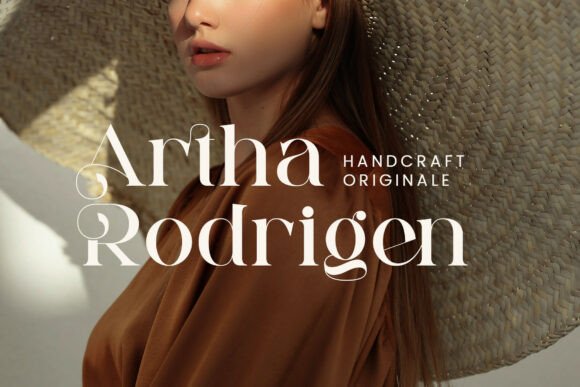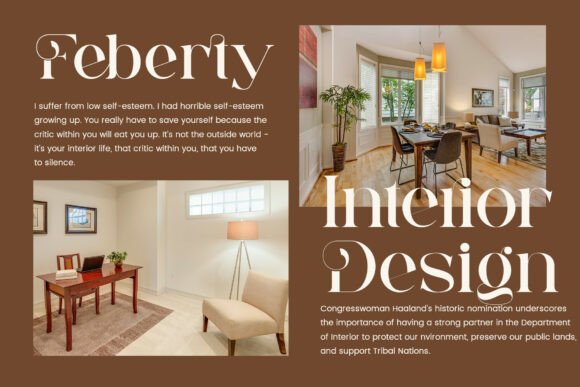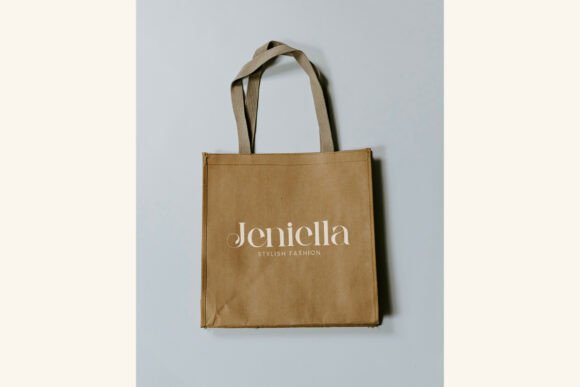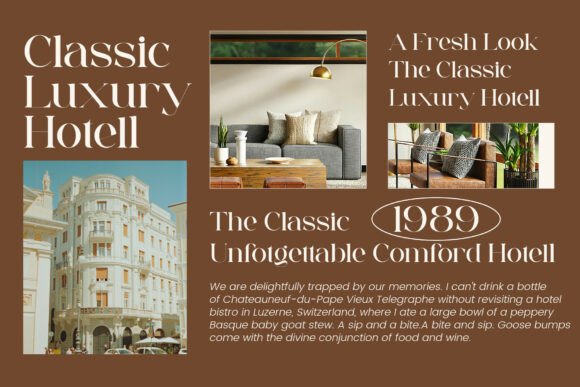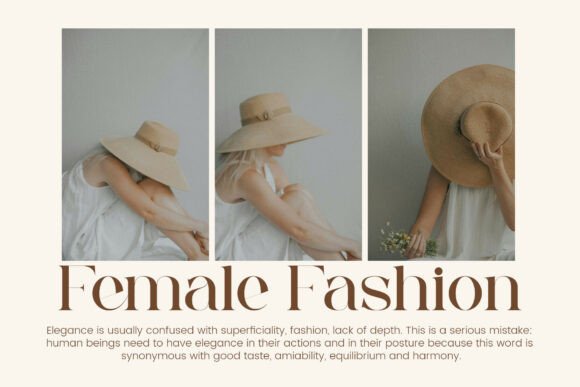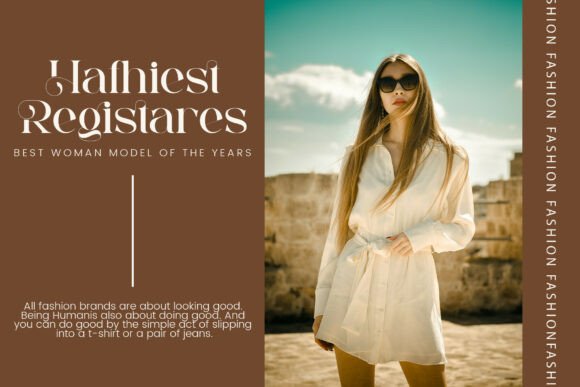
Introducing Egista Font: Elevate Your Designs with Elegance
Egista is an elegant serif font, that features a very delicate and classy look. Not too thin and not too thick, balanced and varied, it was designed to enhance the beauty of your projects. In the world of typography, a font can make or break a design. If you’re a designer or crafter looking for a typeface that exudes sophistication and refinement, look no further than Egista Font.
The Characteristics of Egista Font
Egista Font boasts a range of characteristics that make it an ideal choice for designers seeking to add a touch of elegance to their work. Its serif design ensures a classic and timeless look, while its delicate and classy appearance prevents it from feeling too bold or overpowering. The font strikes the perfect balance between being too thin and too thick, making it versatile and varied.
Key Features of Egista Font
- Elegant Serif Design: Egista Font features a traditional serif design, which adds a level of sophistication and refinement to any project.
- Balanced and Varied: The font’s balanced and varied design ensures that it can be used for a range of applications, from headings and titles to body text.
- Delicate and Classy: Egista Font’s delicate and classy appearance makes it perfect for designers seeking to add a touch of elegance to their work.
- Versatile: The font’s versatility makes it suitable for use in a range of design projects, from print materials to digital applications.
Use Cases for Egista Font
Egista Font is a versatile typeface that can be used in a range of design projects. Here are some use cases where Egista Font excels:
- Branding and Identity: Use Egista Font to create elegant and sophisticated brand identities that make a lasting impression.
- Print Materials: Egista Font is perfect for use in print materials such as brochures, flyers, and business cards.
- Digital Applications: The font can be used in digital applications such as websites, social media graphics, and email marketing campaigns.
- Packaging Design: Egista Font can add a touch of elegance to packaging design, making products stand out on store shelves.
Why Choose Egista Font?
With so many fonts available, why choose Egista Font? Here are just a few reasons why Egista Font stands out from the crowd:
- Unique and Elegant Design: Egista Font’s unique and elegant design ensures that your designs stand out from the crowd.
- High-Quality: The font is designed to high standards, ensuring that it looks great in any application.
- Easy to Read: Egista Font is easy to read, making it perfect for use in body text and other applications where readability is key.
- Support for Multiple Languages: The font supports multiple languages, making it a great choice for designers working on international projects.
Egista Font is an elegant serif font that is perfect for designers seeking to add a touch of sophistication and refinement to their work. With its delicate and classy appearance, balanced and varied design, and versatile nature, Egista Font is an excellent choice for a range of design projects. Whether you’re working on branding and identity, print materials, digital applications, or packaging design, Egista Font is sure to elevate your designs to the next level.